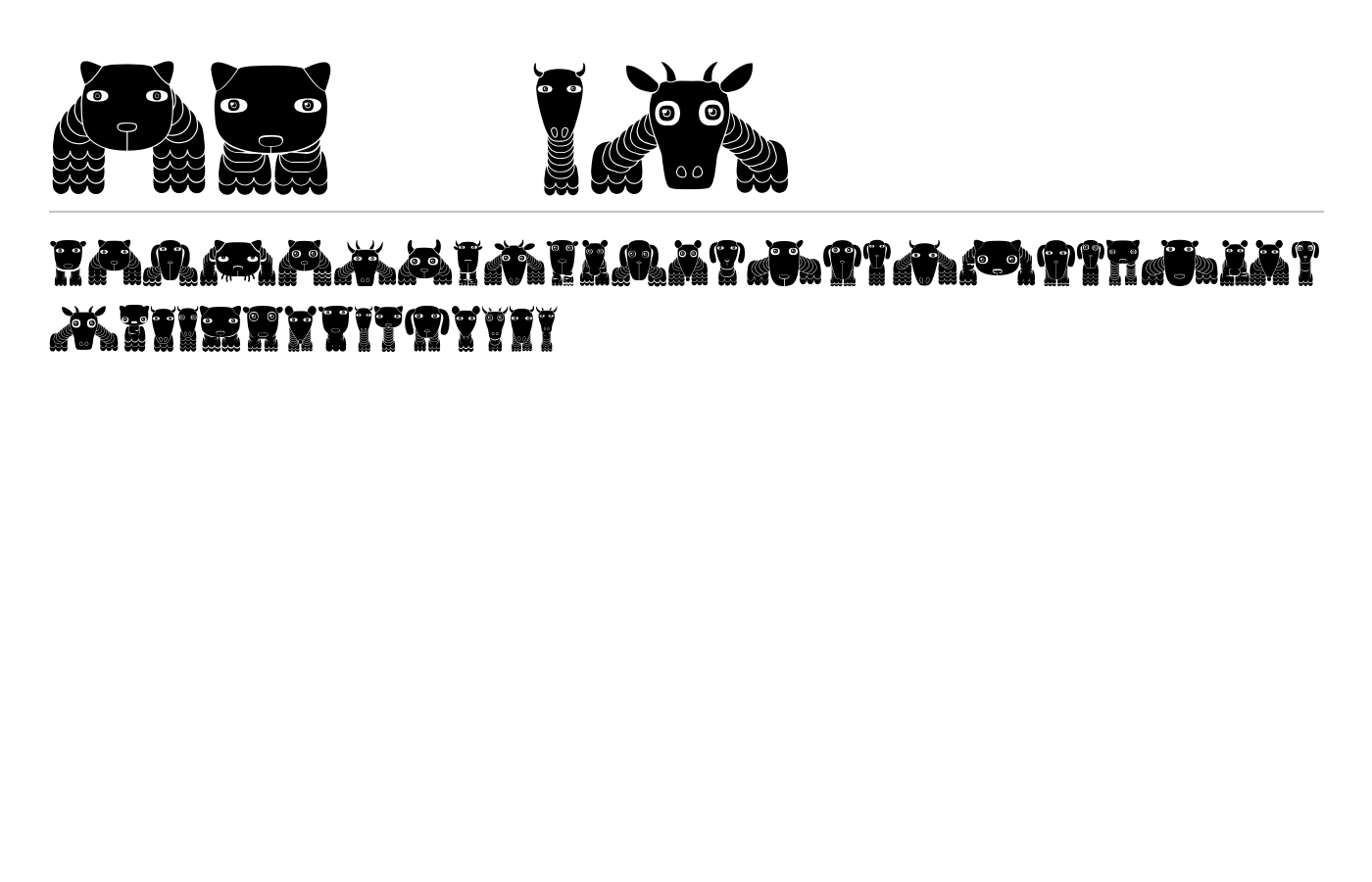
Bestia is a playful decorative font that features charming animal-inspired shapes instead of traditional letterforms, making it unique and whimsical. This bold, compact font is ideal for creative projects that want to convey fun, friendliness, and a sense of nature, perfect for logos, children’s books, posters, and branding that seeks a lively and memorable character. Its distinctive style adds a touch of personality and warmth, making it less suitable for body text but excellent for eye-catching headlines and graphic-focused designs.
Bestia Font
About Bestia Font